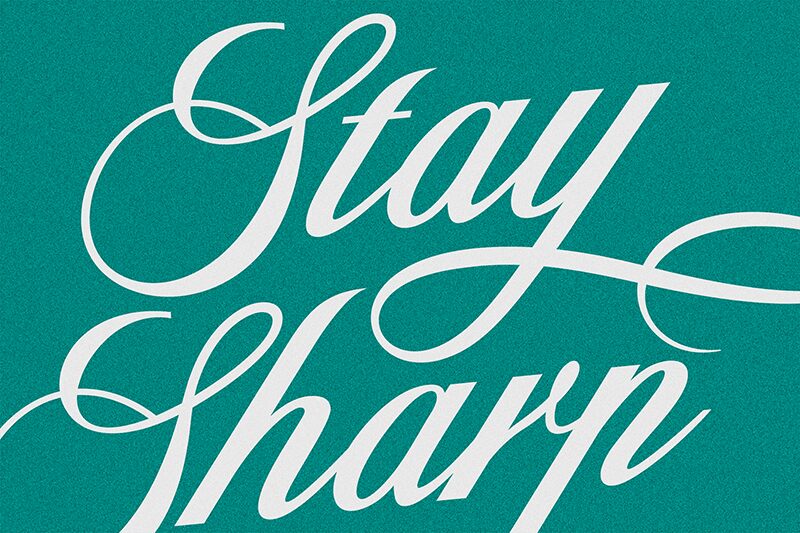
Polaroid Script
Polaroid Script font is a creation by Riyadh Rahman that brings the elegance of calligraphy to a digital platform with classic elements imbued in its design. This decorated font has flowing curves crafted to ultimately form a sophisticated look perfect for both casual and professional calligraphy fans. Install this free calligraphy font for an immediate upgrade from your regular script fonts.